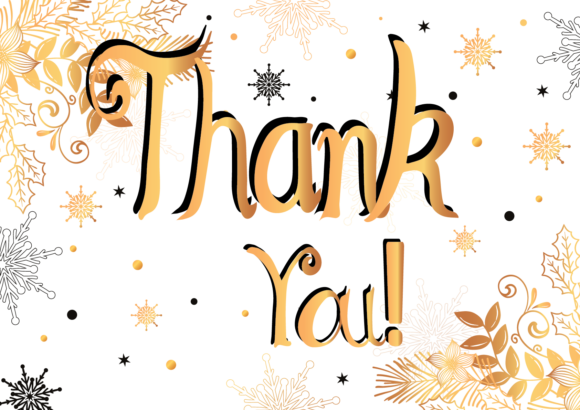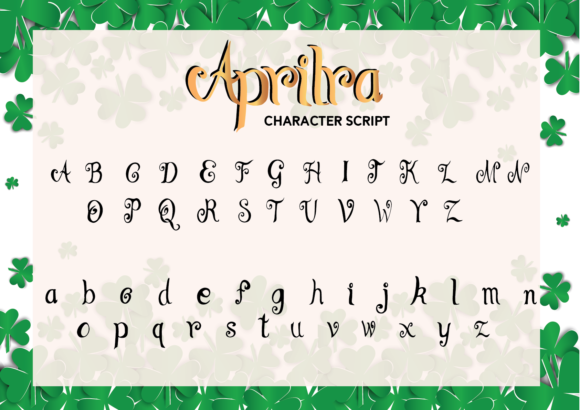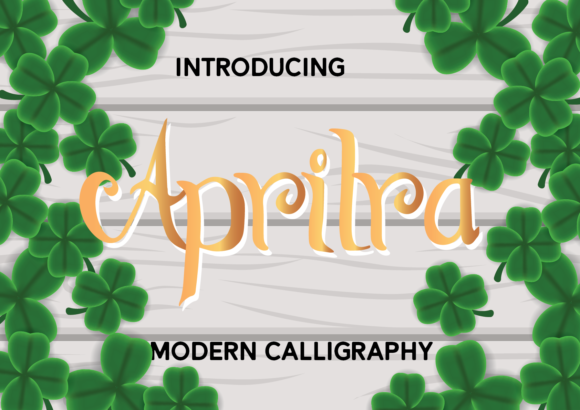
Introducing Aprilra Font: Elevate Your Crafting Design Projects with Elegance
Are you a designer or crafter looking to add a touch of sophistication and personality to your projects? Look no further than the Aprilra Font, a stunning handwritten script font that can transform any crafting design project into a true piece of art. In this article, we’ll dive into the world of Aprilra Font, exploring its features, benefits, and uses, as well as provide tips on how to make the most of this beautiful font.
What is Aprilra Font?
Aprilra Font is a carefully crafted handwritten script font that exudes elegance and charm. Its unique and flowing design makes it perfect for a wide range of crafting design projects, from invitations and greeting cards to branding and packaging. With its beautiful letterforms and attention to detail, Aprilra Font is sure to impress and leave a lasting impression.
Key Features of Aprilra Font
- Handwritten Script Design: Aprilra Font boasts a beautiful, handwritten script design that adds a personal touch to any project.
- Elegant and Refined: The font’s elegant and refined design makes it perfect for projects that require a touch of sophistication.
- Highly Versatile: Aprilra Font can be used for a wide range of projects, from digital designs to print materials.
- Easy to Read: Despite its ornate design, Aprilra Font is highly legible and easy to read, making it perfect for body text and headlines.
Benefits of Using Aprilra Font
So, why should you choose Aprilra Font for your crafting design projects? Here are just a few benefits of using this stunning font:
- Adds a Personal Touch: Aprilra Font’s handwritten design adds a personal touch to any project, making it perfect for crafts and DIY projects.
- Elevates Your Design: The font’s elegant design elevates your project and adds a level of sophistication that sets it apart from the rest.
- Versatile and Adaptable: Aprilra Font can be used for a wide range of projects, from formal events to casual crafts.
Using Aprilra Font in Your Design Projects
So, how can you use Aprilra Font in your design projects? Here are a few ideas to get you started:
- Invitations and Greeting Cards: Use Aprilra Font to create beautiful, one-of-a-kind invitations and greeting cards for special occasions.
- Branding and Packaging: Add a touch of elegance to your branding and packaging with Aprilra Font.
- Crafts and DIY Projects: Use Aprilra Font to add a personal touch to your crafts and DIY projects, such as scrapbooking and journaling.
Tips for Getting the Most Out of Aprilra Font
To get the most out of Aprilra Font, here are a few tips to keep in mind:
- Experiment with Different Sizes: Aprilra Font looks great in a variety of sizes, from small body text to large headlines.
- Pair with Other Fonts: Try pairing Aprilra Font with other fonts to create a unique and visually appealing design.
- Use for Display Text: Use Aprilra Font for display text, such as titles and headings, to add a touch of elegance to your design.
In conclusion, Aprilra Font is a stunning handwritten script font that can elevate any crafting design project into a true piece of art. With its elegant design, versatility, and ease of use, Aprilra Font is perfect for designers and crafters looking to add a touch of sophistication and personality to their projects. So why wait? Download Aprilra Font today and start creating beautiful, one-of-a-kind designs that will leave a lasting impression.